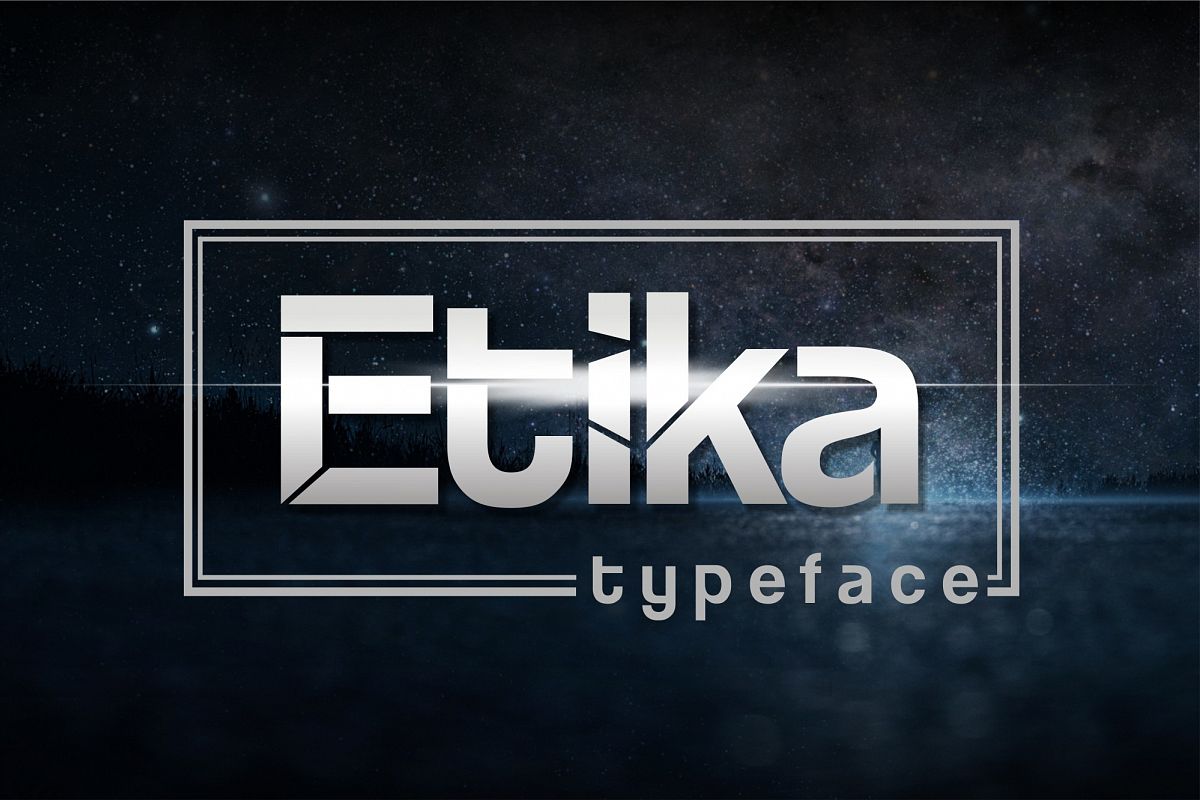
Etika Typeface - A reguler and awesome character!
With two different style, it's perfect for logos, name card, magazine
layouts, invitations, headers, or even large-scale artwork.